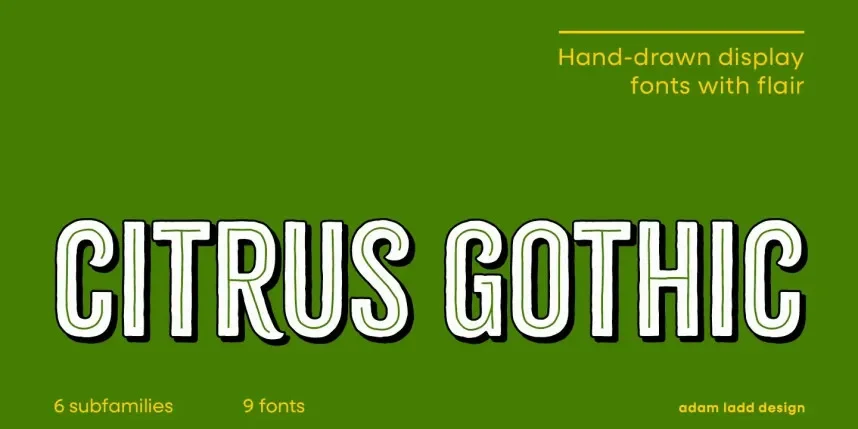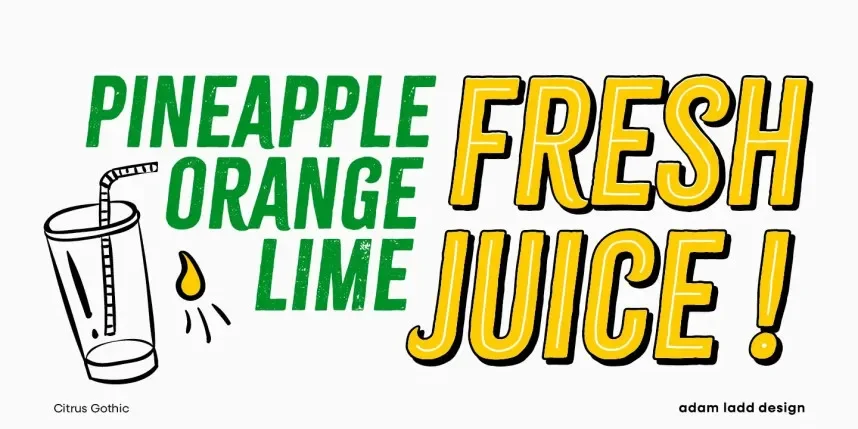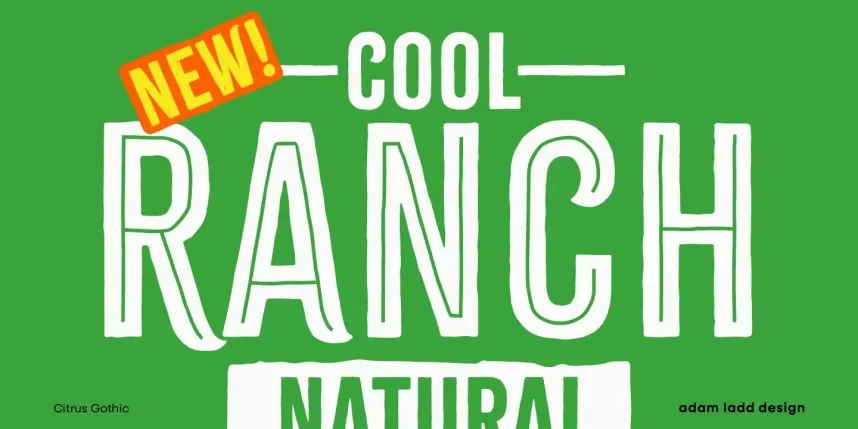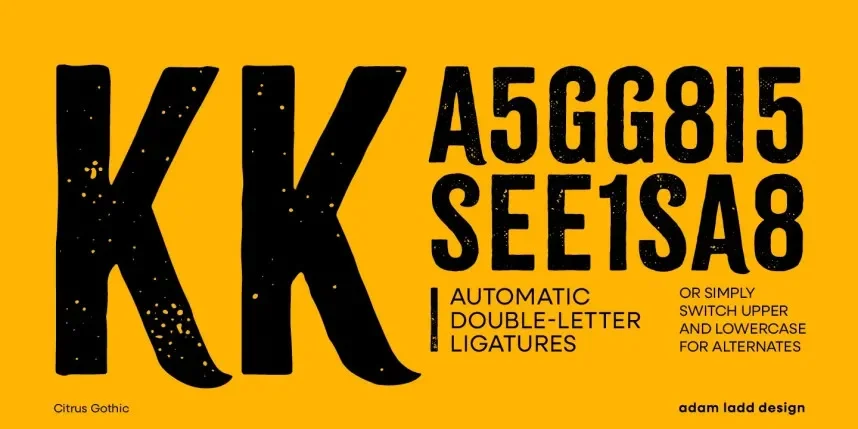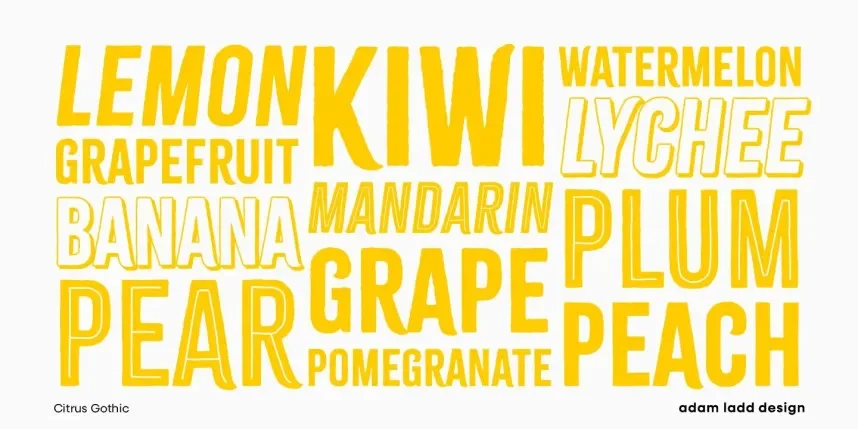
Citrus Gothic Font Family supports projects that need geometric structure without excessive rigidity.
This font family is generally categorized as a gothic sans-serif, using clean lines, open counters, and consistent proportions. The geometry helps maintain clarity across digital and print layouts.